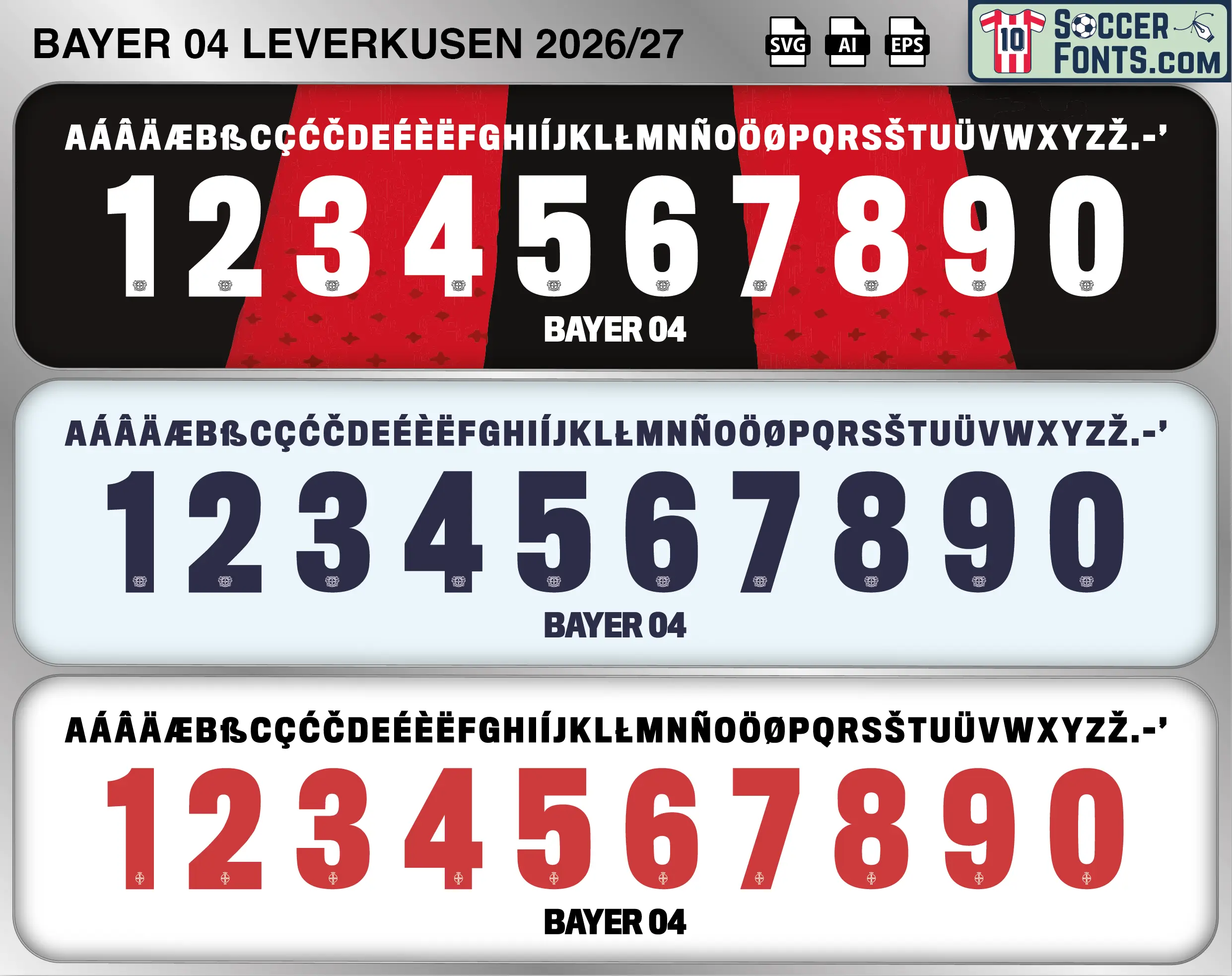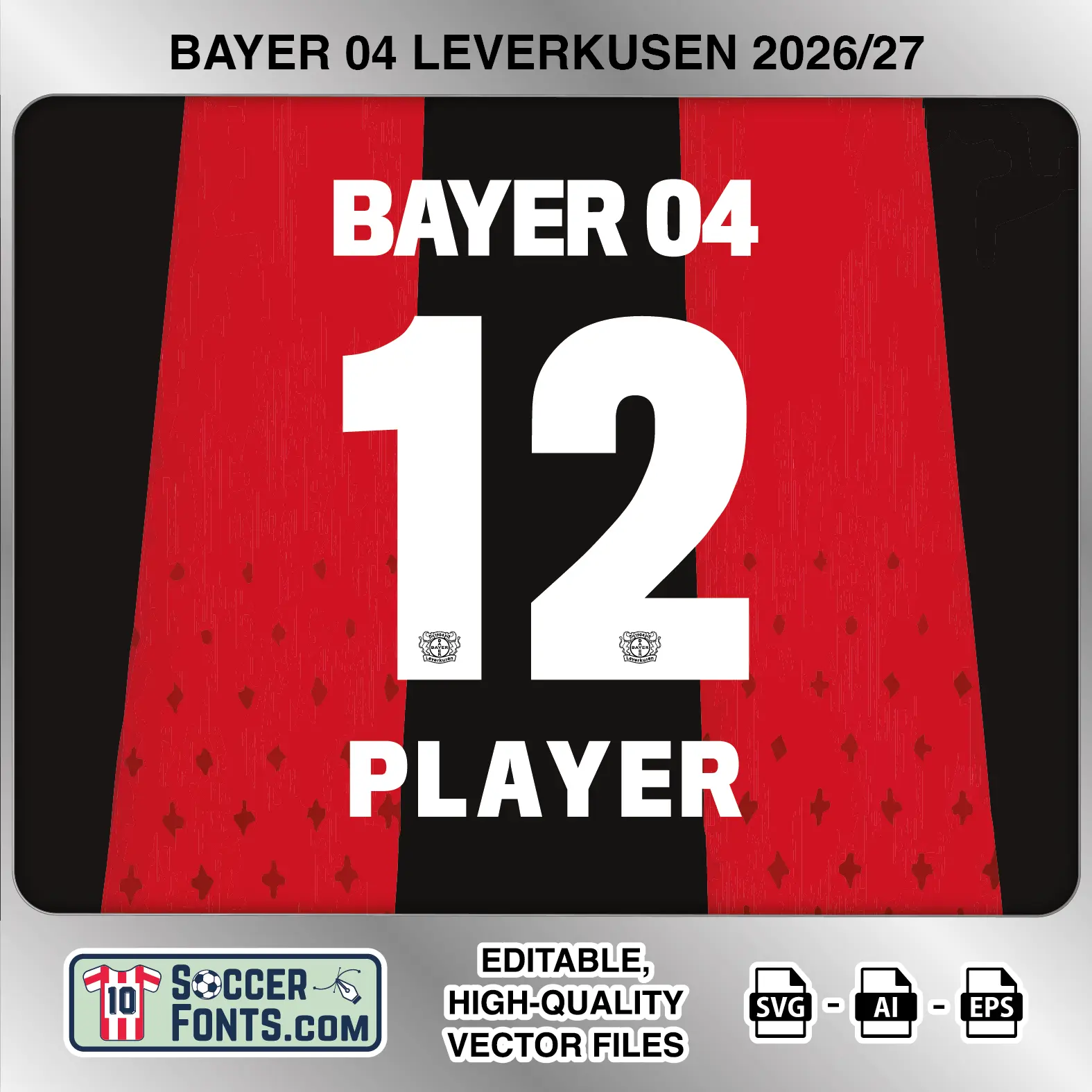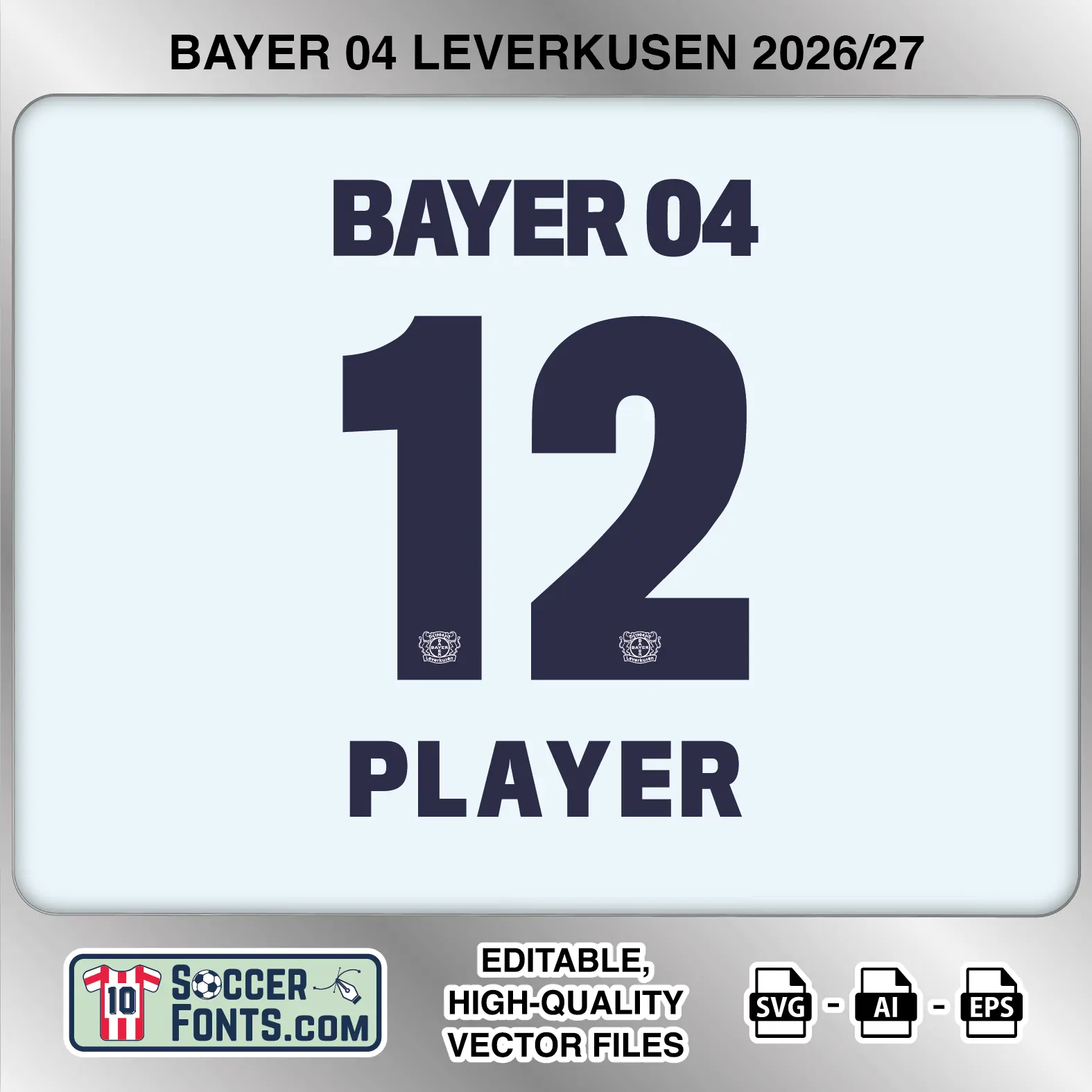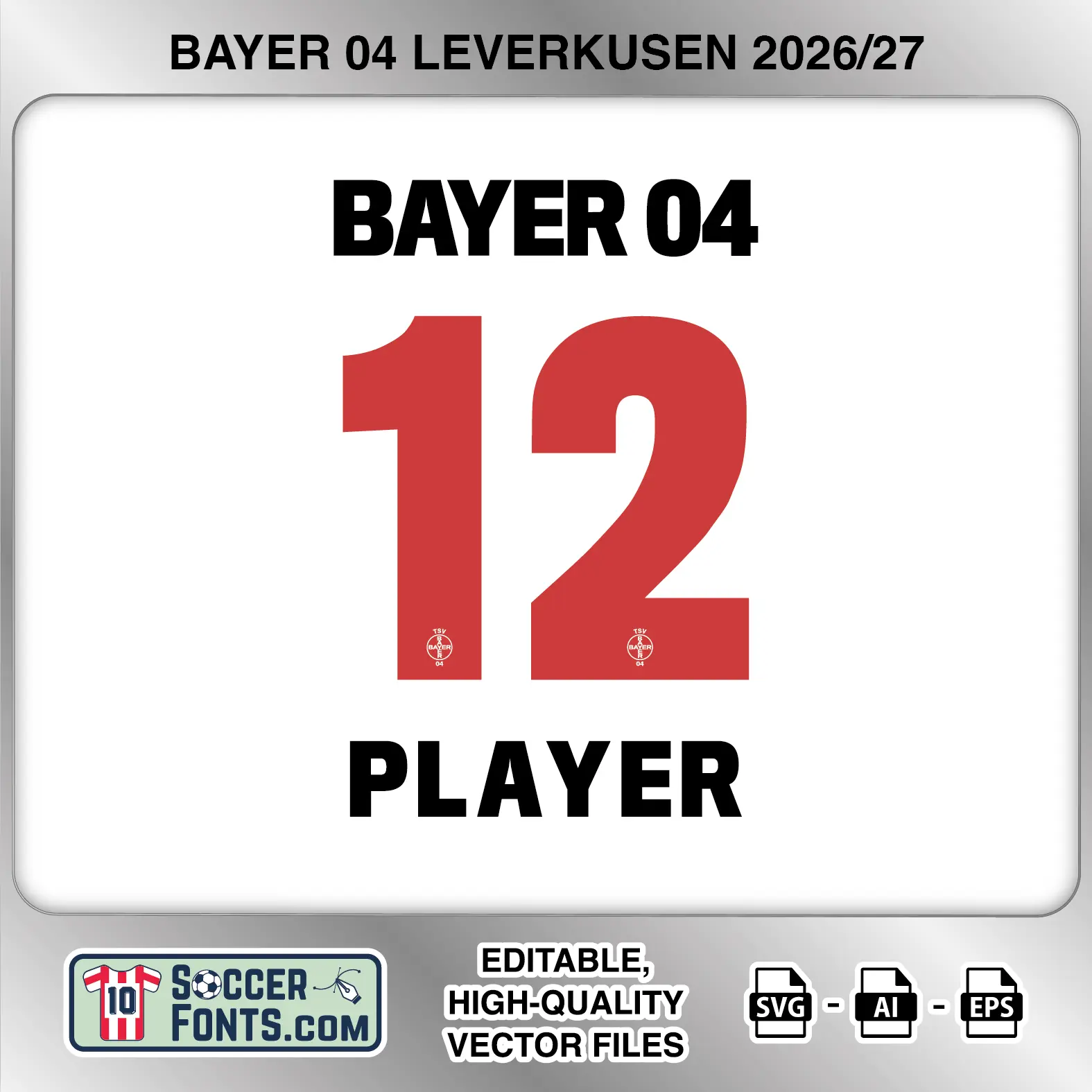
About Bayer Leverkusen 2026-27 Font
Download Bayer Leverkusen 2026-27 font, an editable soccer jersey lettering design in vector format inspired by the Bayer Leverkusen kit style used during the 2026-27 football season. This football font artwork is prepared for football shirt recreations, custom jersey projects, football kit mockups and sports graphic design workflows.
Visual Identity of the Font Design :
The Bayer Leverkusen 2026-27 lettering uses a heavy, condensed sans-serif construction with a notably clean and direct appearance. The uppercase names are tightly proportioned with thick strokes and limited spacing, while the numbers are considerably taller and broader for strong shirt-back visibility. Unlike outlined or dimensional football number styles, these numerals use solid fills with no decorative border. Their forms mix straight structural strokes with pronounced curves: the 2 has a broad rounded upper section flowing into a diagonal and flat base, while 6, 8, 9 and 0 use substantial rounded bowls. The 1 is especially distinctive, with a curved transition into its upper-left flag rather than a sharp geometric corner. A small Bayer Leverkusen crest appears near the bottom of each number. The same basic design is presented in white for the red-and-black home treatment, dark navy on the pale away version and red for the white third treatment, keeping the typography consistent while changing its color to suit each kit.
Context of 2026-27 Season for Bayer Leverkusen :
Bayer Leverkusen entered 2026-27 in another chapter of the club’s post-2024 transformation. The historic unbeaten Bundesliga title under Xabi Alonso had permanently changed expectations around the Werkself, turning Leverkusen from regular European contenders into a club expected to compete near the top of German football. The Bayer Leverkusen 2026-27 Font belongs to an era shaped by that new status and the challenge of sustaining it.
By this stage, the squad had evolved considerably from the group that delivered the 2023-24 double. Florian Wirtz and Jeremie Frimpong had already left for Liverpool in 2025, while other changes continued to reshape the identity of the team. The 2026-27 campaign therefore represented another test of Leverkusen’s ability to rebuild without abandoning its ambitions.
For kit collectors and football design projects, the Bayer Leverkusen 2026-27 Font identifies a period when the club was operating with expectations created by unprecedented domestic success. The Bayer Leverkusen 2026-27 Font also reflects a modern Leverkusen era increasingly associated with Bundesliga title contention and regular European football.